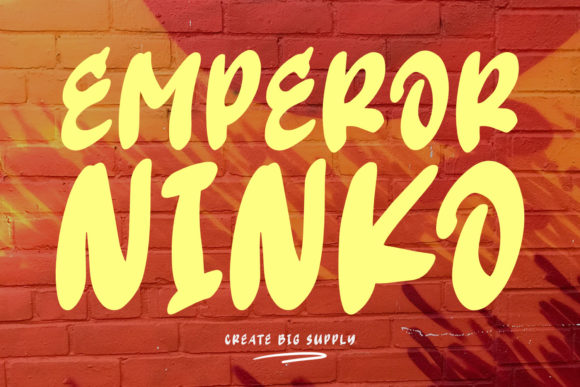
Prepare for a calligraphic experience that transports you to an era of imperial elegance with Emperor Ninko, a display font that exudes regal charm. With each letterform crafted as a work of art, Emperor Ninko empowers you to evoke a timeless aesthetic in your designs.
Step into a world of visual splendor, where the bold, urban style of Emperor Ninko commands attention. This font is a symphony of sleek lines and striking curves, designed to captivate and inspire. Whether you seek to leave a lasting impression on t-shirts, sportswear, or logos, Emperor Ninko will elevate your creations to new heights.
Indulge in the versatility of Emperor Ninko. Its characters dance effortlessly across advertisements, clothing, and any medium you desire, imparting a touch of urban sophistication to every project. With Emperor Ninko, you're not just adding text—you're crafting a statement.
Let Emperor Ninko guide you through a creative journey that transcends the ordinary. Each letter is a brushstroke of brilliance, inviting you to paint a masterpiece with your words. Embrace the imperial spirit and watch as your designs reign supreme.